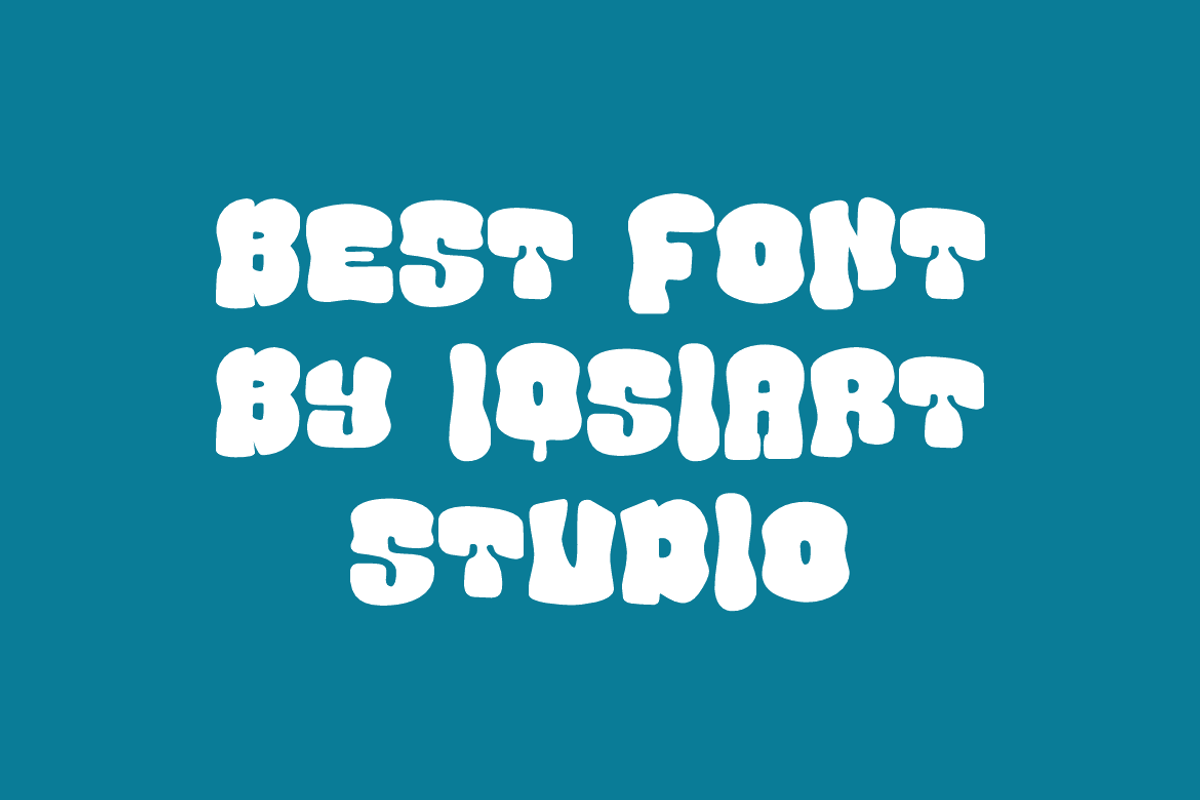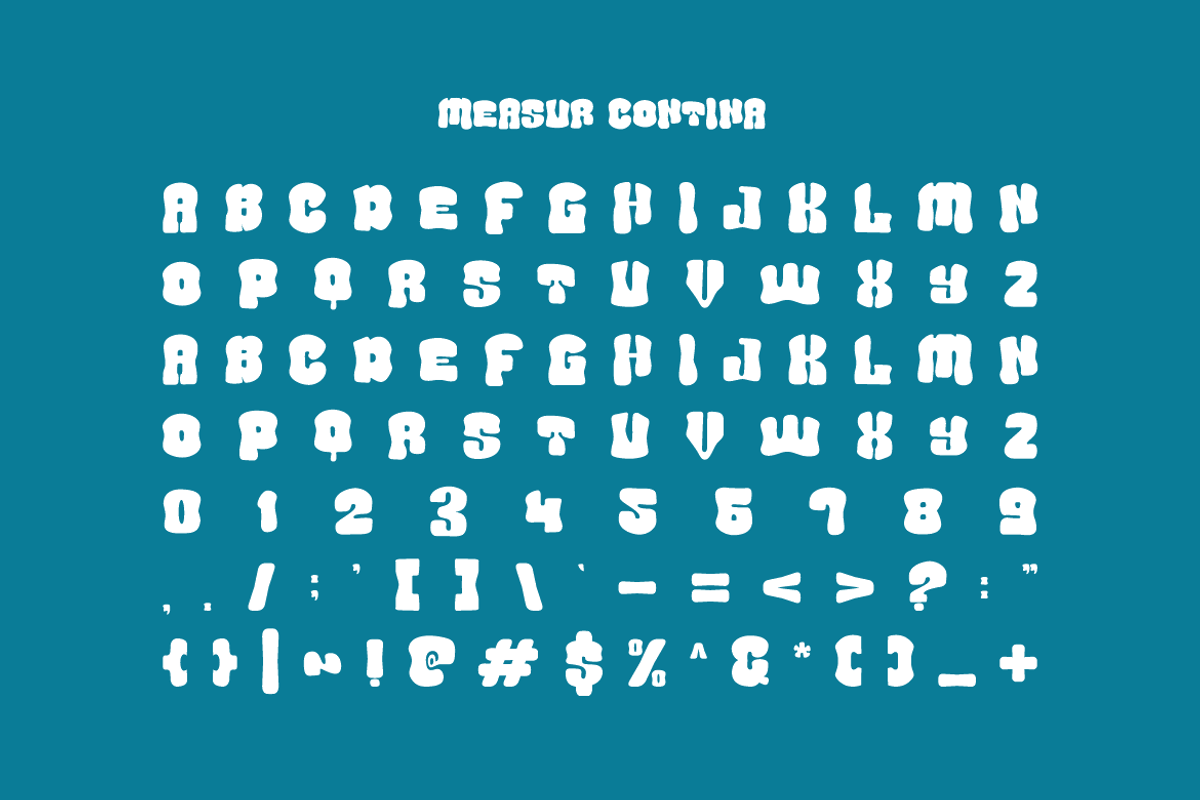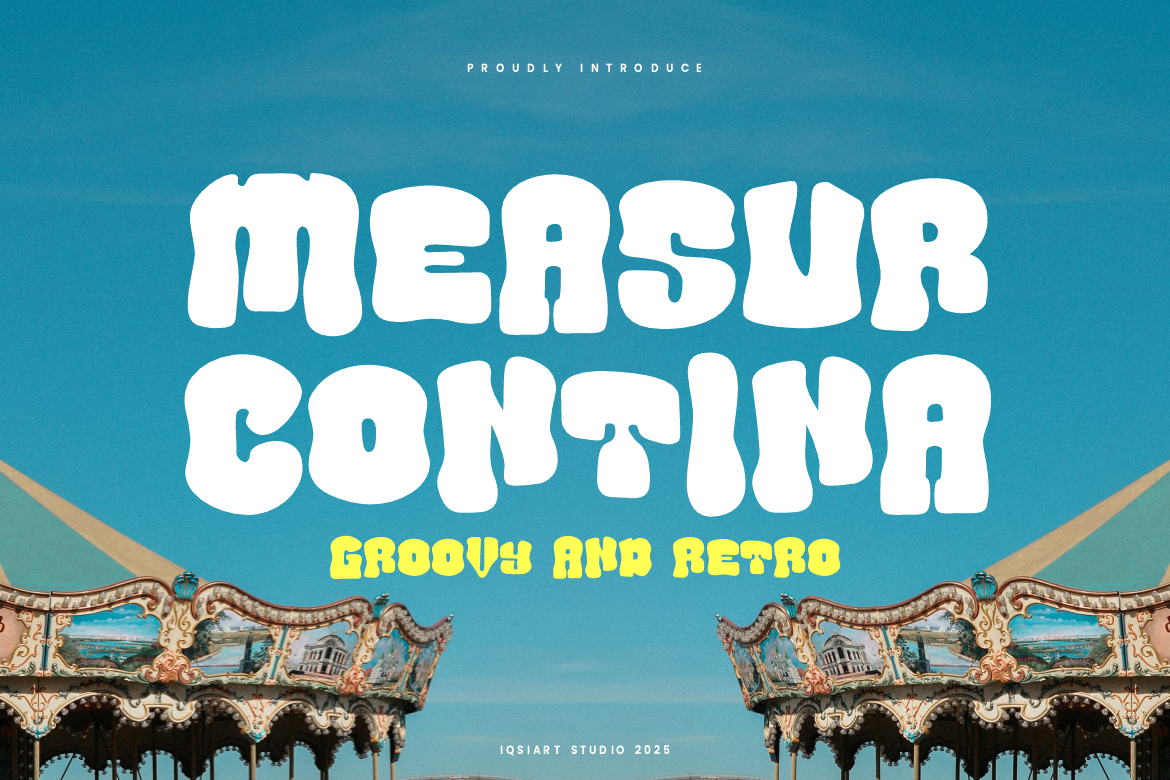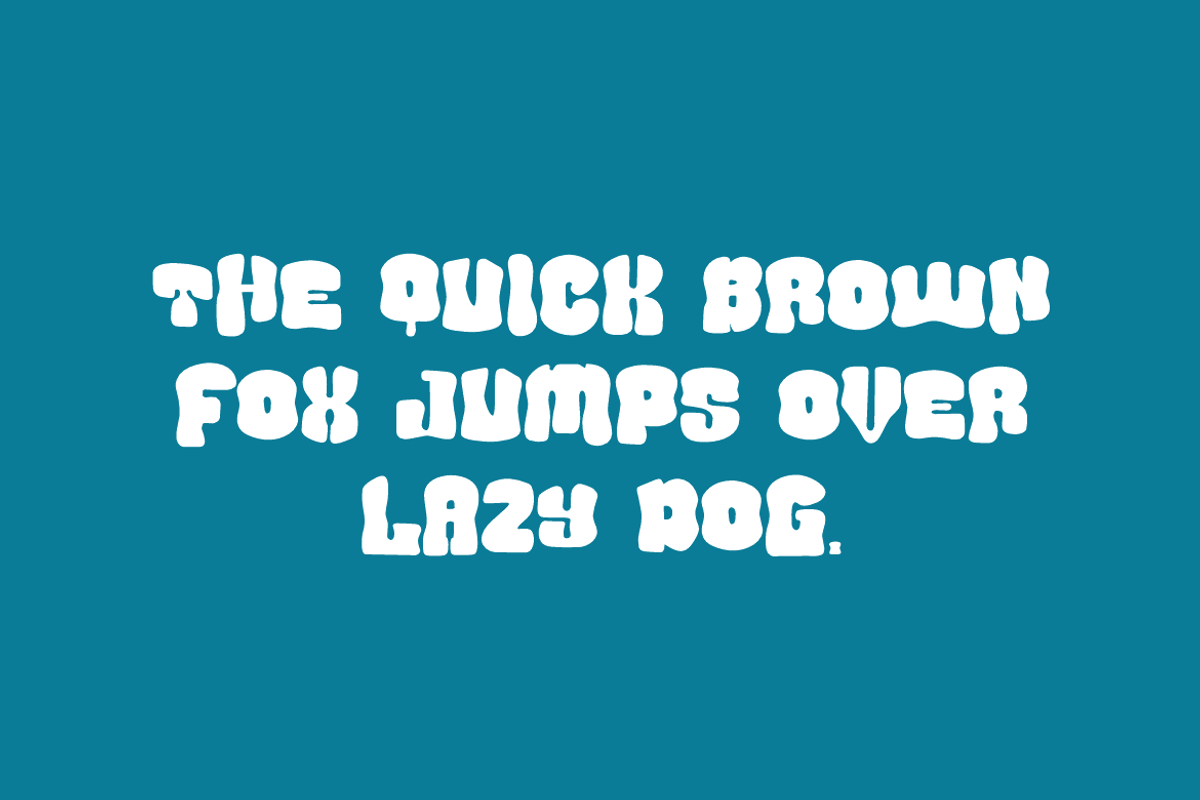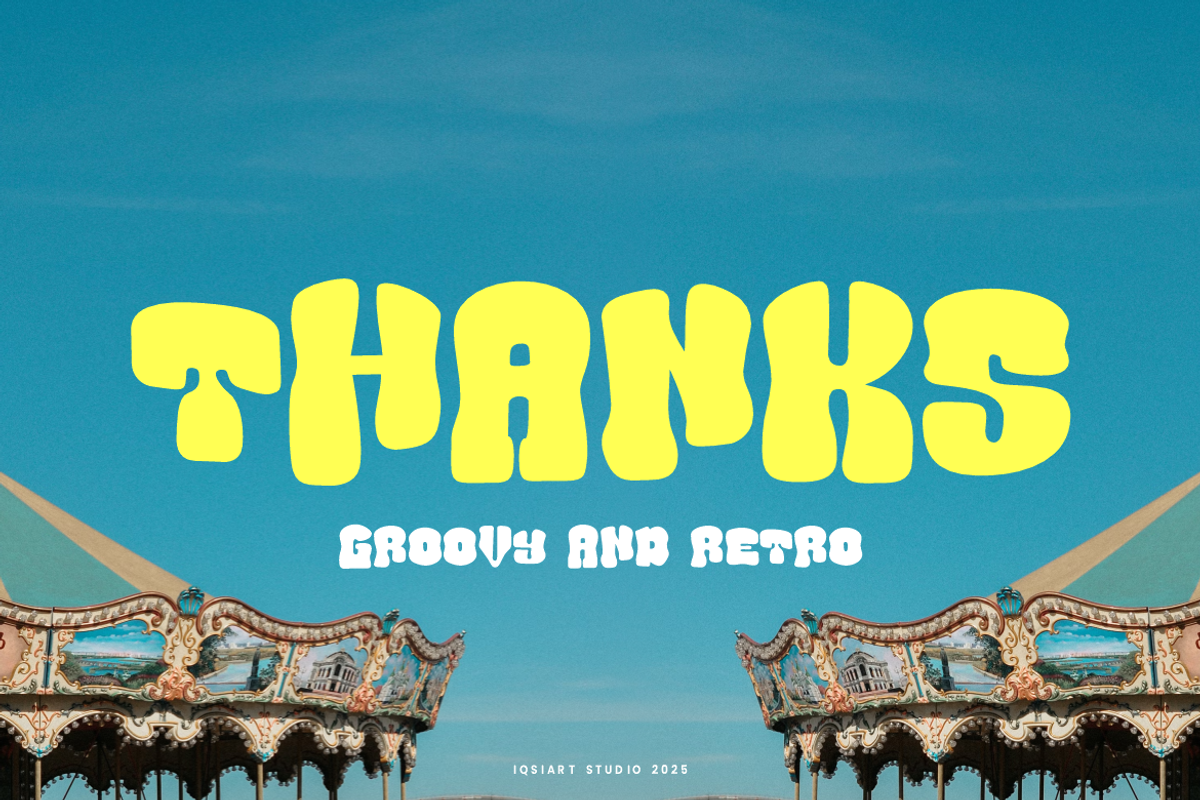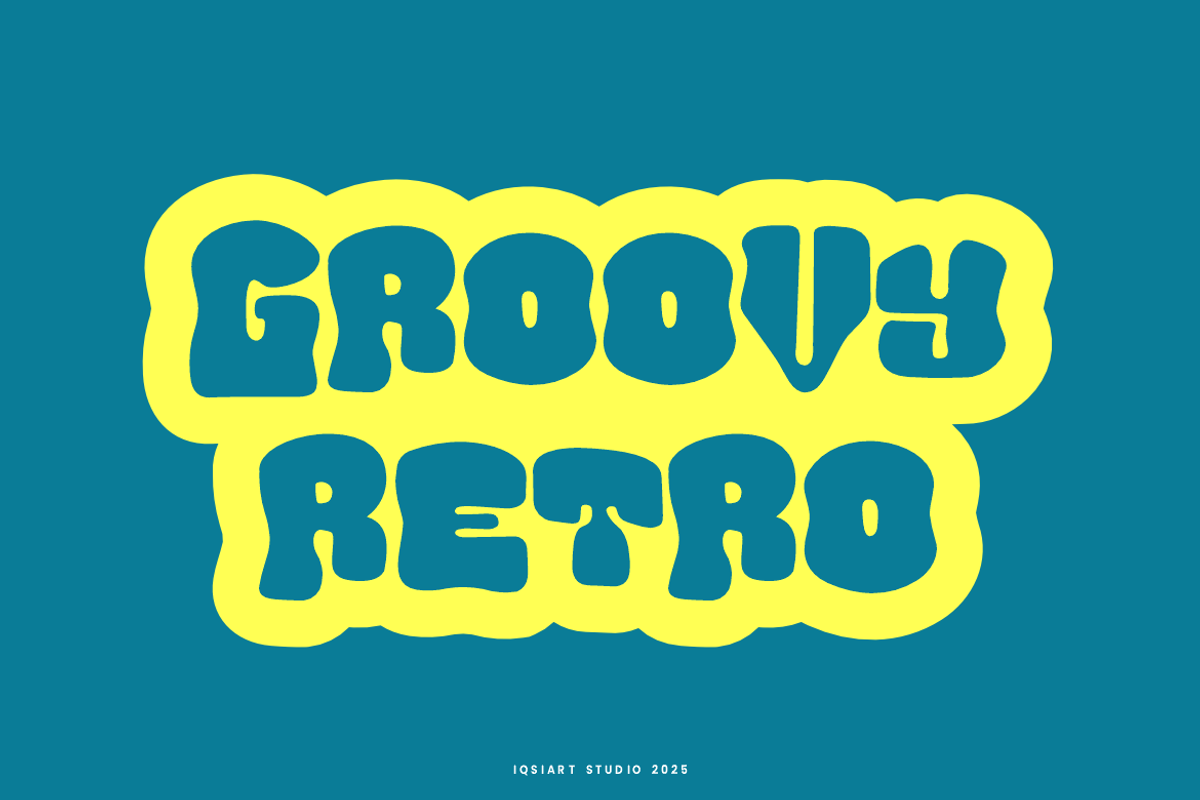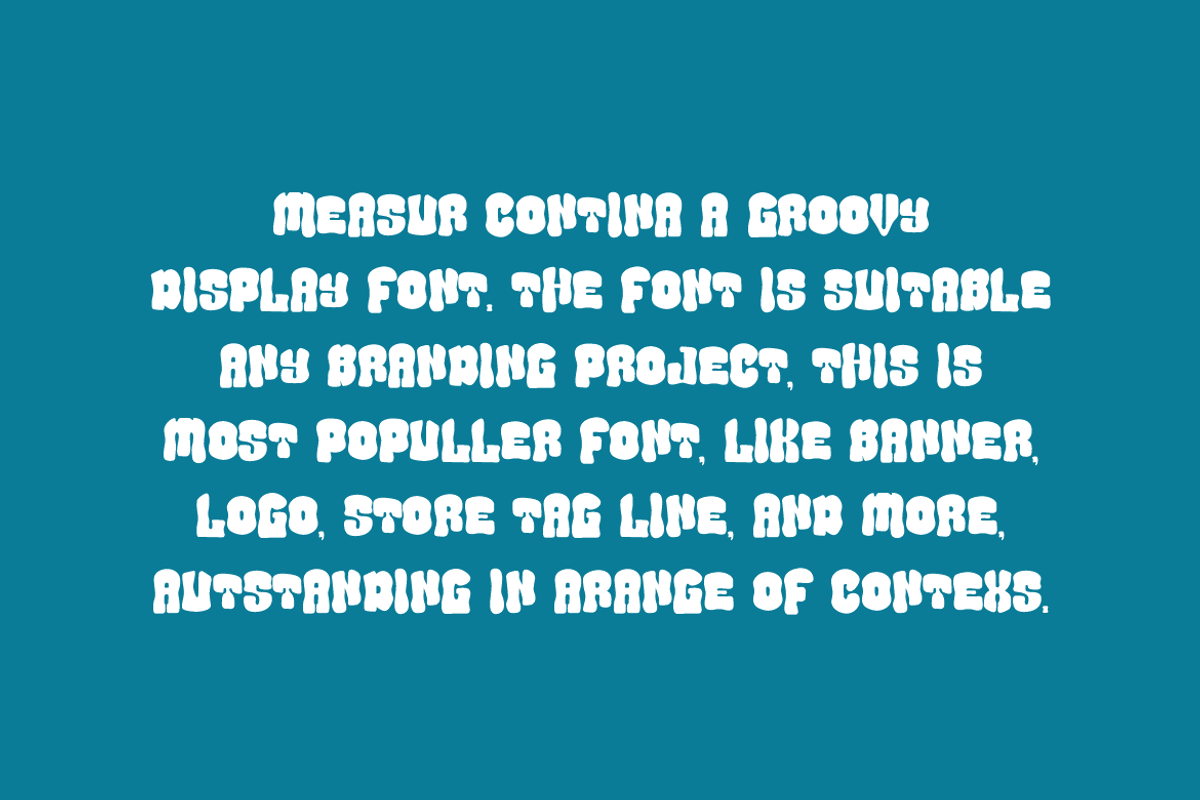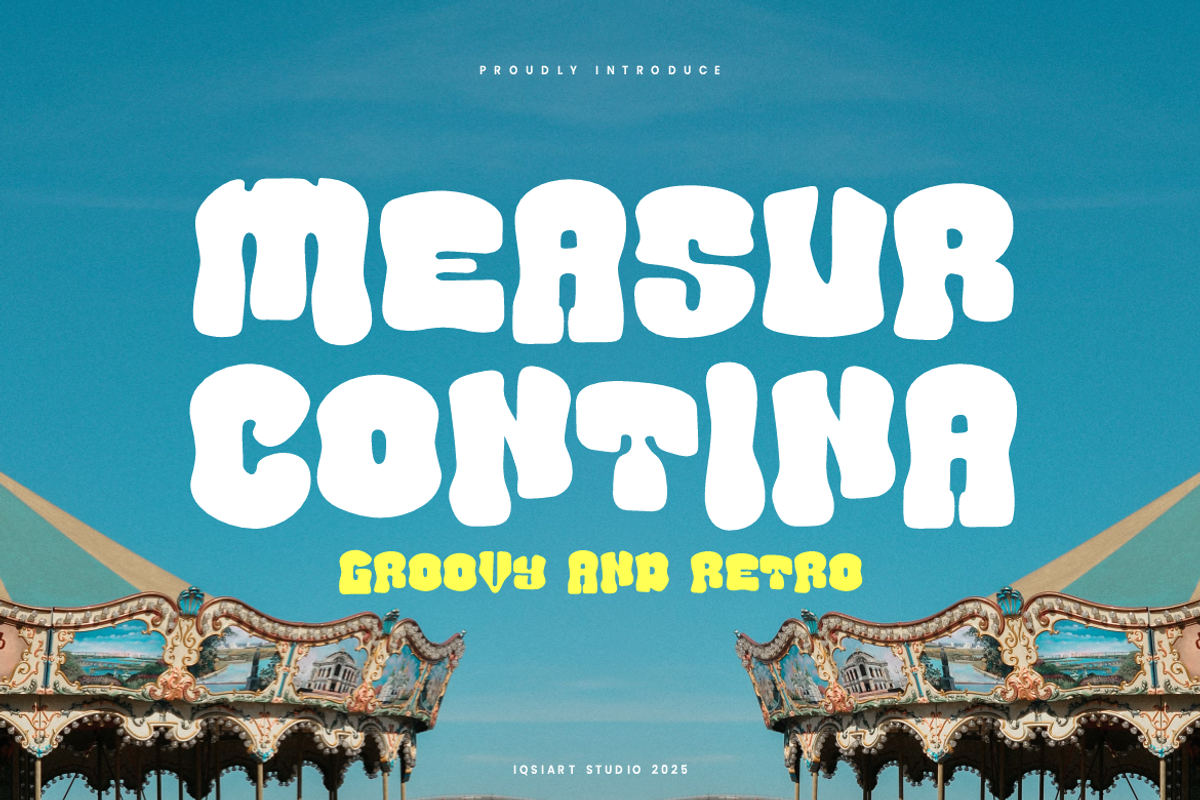
Measur Contina - Groovy Retro Font
Measur Contina Font is a best and authentic display font. This font can be used for your various needs. We provide various themes and font styles. visit our profile to get a wide variety of themes and different font styles you need.